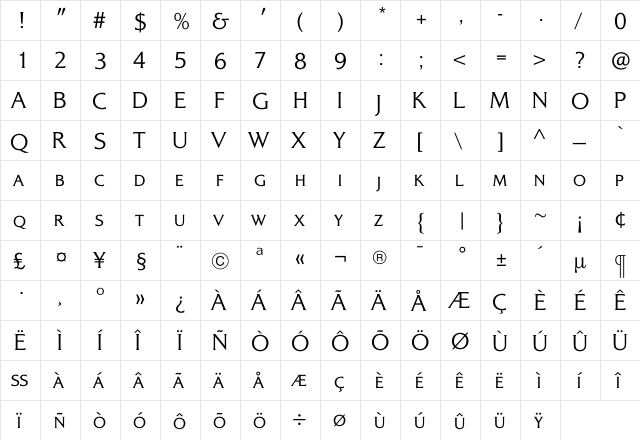
AlexonLightExpert Regular
Design Context for AlexonLightExpert Typeface
AlexonLightExpert is a composed and adaptable typeface that performs quietly and consistently across a wide range of design contexts. Its slender proportions lend an understated elegance to any composition.